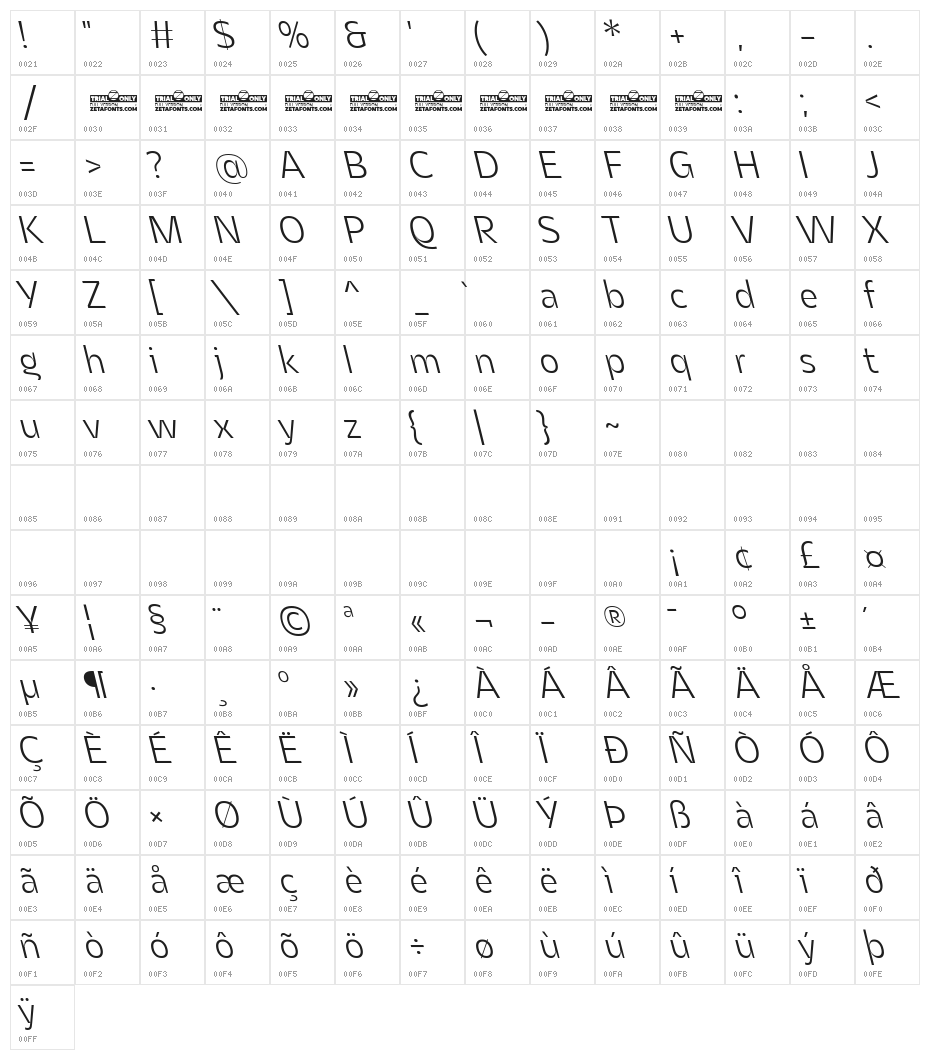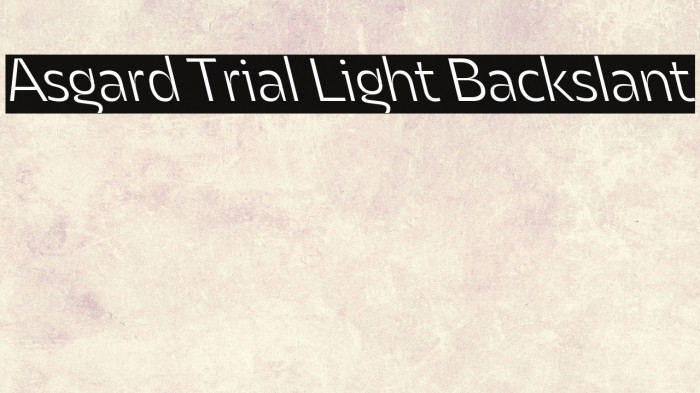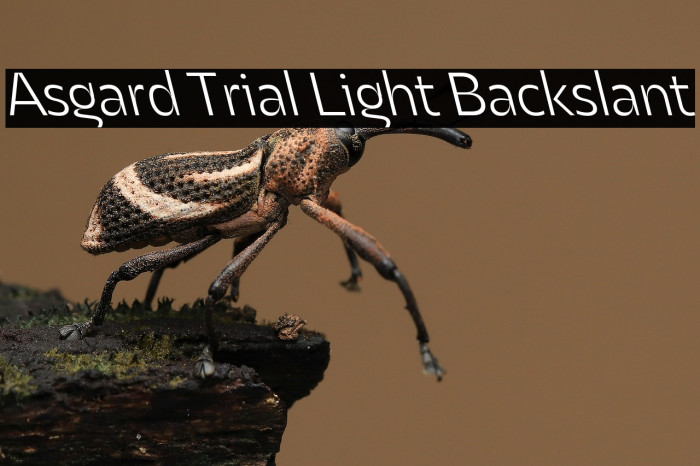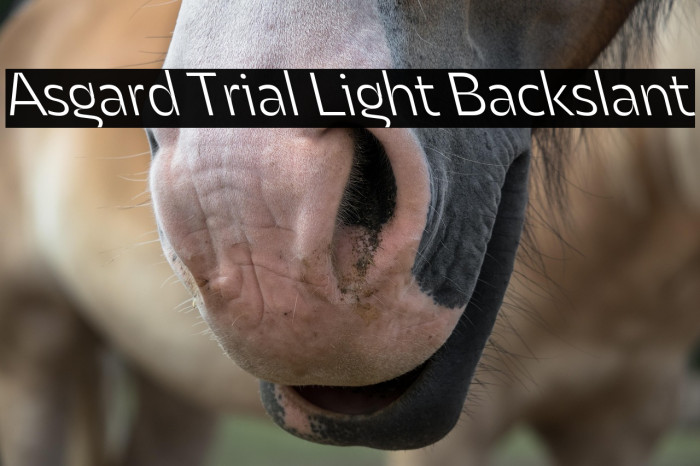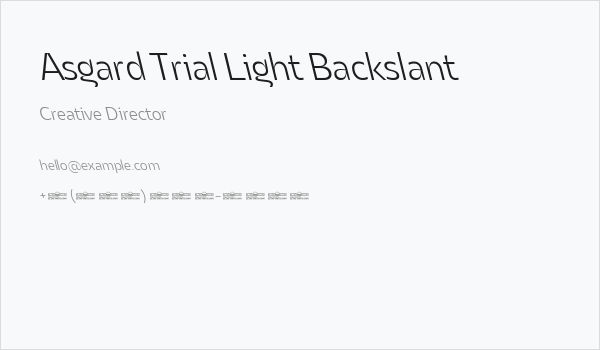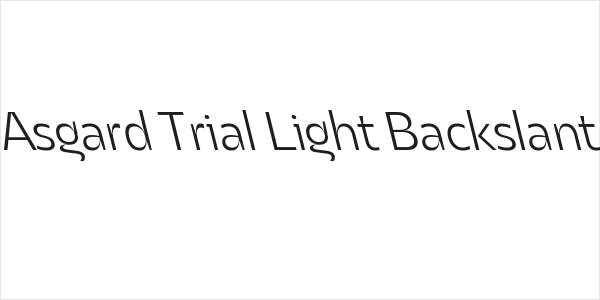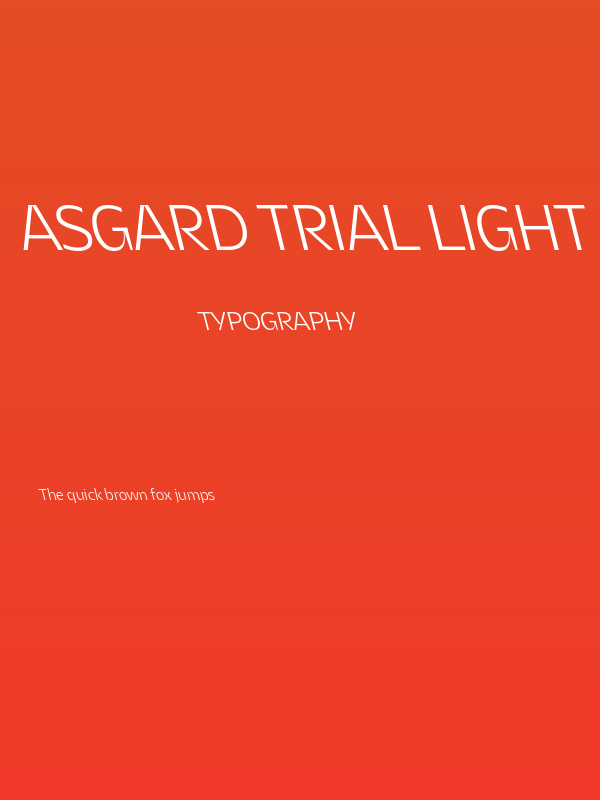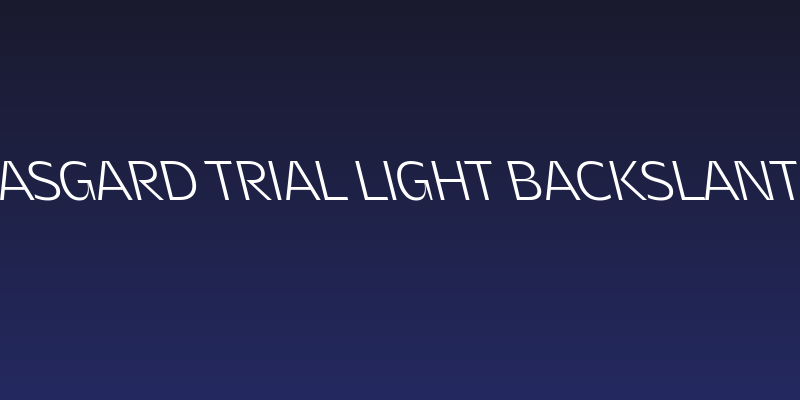
Asgard Trial Light Backslant Font
Asgard Trial Light Backslant Description
This font features a modern and sleek design with a distinctive backslant, giving it a dynamic and forward-moving appearance. The characters are crafted with a light weight, providing an airy and open feel. The sans-serif style ensures clean lines and a minimalist aesthetic, making it versatile for various design applications. The consistent stroke width across characters contributes to a uniform look, while the slight slant adds a unique touch. This font is well-suited for projects that require a contemporary and stylish typeface.
| Proposed Projects | Ideal for branding, editorial design, digital interfaces, and advertising campaigns. |